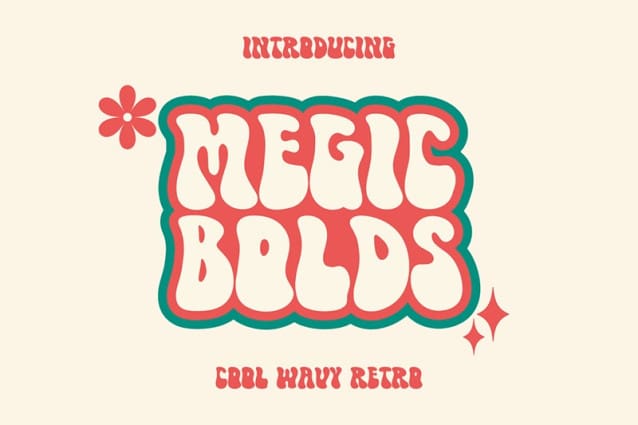
Megic Bolds Font
Megic Bolds Font is a playfull and cute font, it’s perfect for designs that need a playful, cheery accent. It is suitable for book covers, posters, packaging, merchandise, logotypes, and many more!